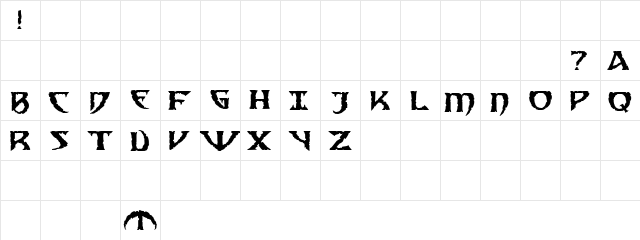
Samedi Demo Regular
Design Context for Samedi Demo Typeface
Samedi Demo is a composed and adaptable typeface that performs quietly and consistently across a wide range of design contexts.